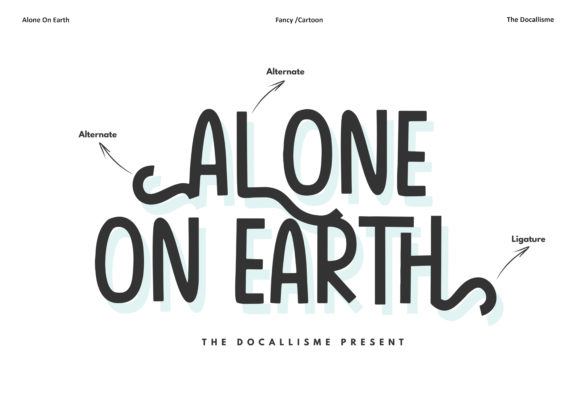
Discover the Charm of Alone on Earth Font: Elevate Your Designs with a Cool, Fun, and Relaxed Style
In the vast universe of typography, finding the perfect font that captures the essence of your creative project can be a daunting task. However, if you’re on the lookout for a typeface that exudes a cool, fun, and relaxed vibe, then the Alone on Earth Font is an excellent choice. This stylish display font is not just a visual treat but a versatile tool that can transform any creative idea into a stunning piece of art. Whether you’re a designer crafting visuals for Instagram, a crafter working on DIY projects, or an artist seeking inspiration, Alone on Earth Font is here to elevate your designs.
Unleash Your Creativity with Alone on Earth Font
Alone on Earth Font stands out in the digital landscape with its unique blend of casualness and sophistication. Its relaxed styled display font characteristics make it perfect for a wide range of applications. From social media graphics and blog posts to craft tutorials and personal branding, this font adds a touch of personality and flair to any project. Its fun and cool attributes ensure that your designs never feel stale or overused, allowing you to connect with your audience on a more personal level.
Perfect for Instagram and Social Media
In today’s digital age, Instagram and other social media platforms have become essential channels for expressing creativity and connecting with like-minded individuals. Alone on Earth Font is specifically designed to make your Instagram posts, stories, and bio stand out. Its stylish and eye-catching appearance ensures that your content doesn’t get lost in the sea of posts. Use it to create engaging captions, highlight quotes, or add a personal touch to your graphic posts. With Alone on Earth Font, you can elevate your social media presence and make your profile truly unforgettable.
Ideal for DIY Projects and Calligraphy Scripts
For crafters and DIY enthusiasts, finding the right font for calligraphy scripts can be a challenge. Alone on Earth Font comes as a breath of fresh air, offering a unique blend of playfulness and elegance. Whether you’re working on handmade cards, journaling, or decorative signs, this font can add a professional yet personal touch to your projects. Its compatibility with various mediums and techniques makes it a versatile choice for crafters looking to experiment with new styles and ideas.
Why Choose Alone on Earth Font?
So, what makes Alone on Earth Font a must-have for designers and crafters? Here are a few reasons:
- Unique Style: Its cool, fun, and relaxed style sets it apart from more traditional fonts, offering a fresh perspective for your designs.
- Versatility: Whether it’s for digital use or print, Alone on Earth Font adapts seamlessly, making it suitable for a wide range of projects.
- Easy to Use: Designed with user-friendliness in mind, this font is easy to integrate into your projects, regardless of your technical skills.
- Inspirational: With its artistic and creative vibe, Alone on Earth Font can serve as a great source of inspiration for your next big project.
| Font Name | Alone on Earth Font |
| Author | DCLL Studio |
Alone on Earth Font is more than just a typeface; it’s a creative companion that can help bring your ideas to life. Its unique blend of coolness, fun, and relaxation makes it an invaluable asset for designers, crafters, and artists looking to add a personal touch to their work. Whether you’re aiming to enhance your Instagram presence, craft beautiful DIY projects, or simply explore new creative avenues, Alone on Earth Font is ready to be your guide. Embrace its charm and discover a world of creative possibilities waiting to be explored.